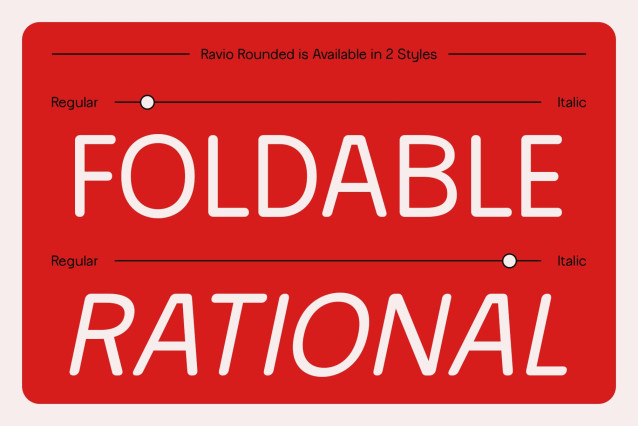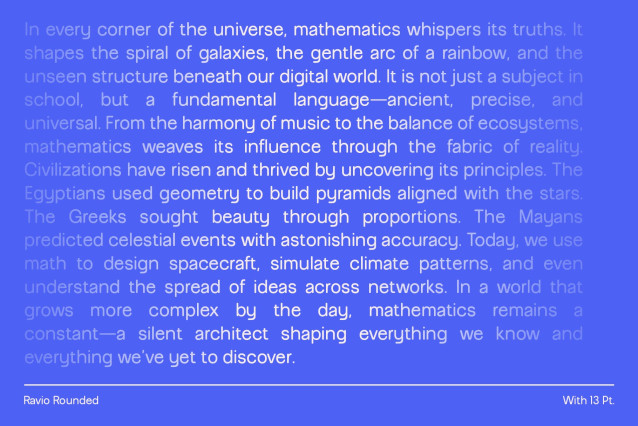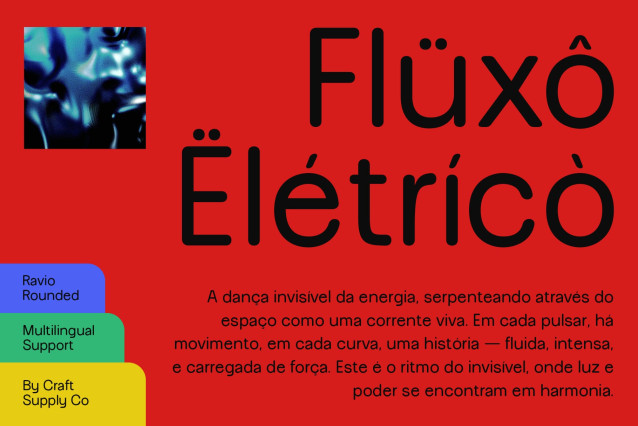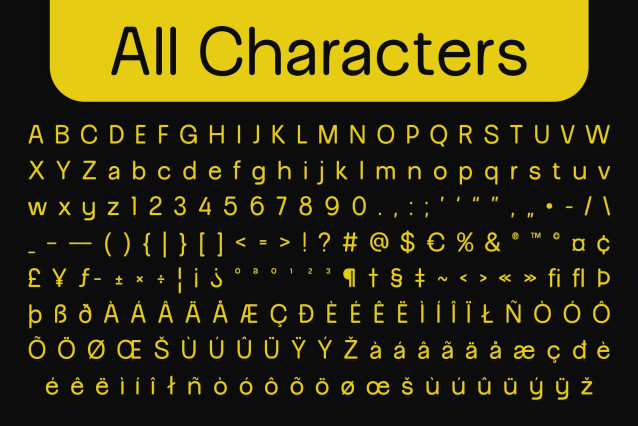
Ravio Rounded Font
Ravio Rounded Font – Precision Meets Approachability
Modern Geometric Structure with Clean Proportions
RavioRounded is a modern sans serif font designed with a precise geometric structure, delivering a look that’s both orderly and contemporary. Its clean, slim forms and careful spacing ensure clarity and visual harmony, ideal for projects that require a neat, structured aesthetic with strong readability.